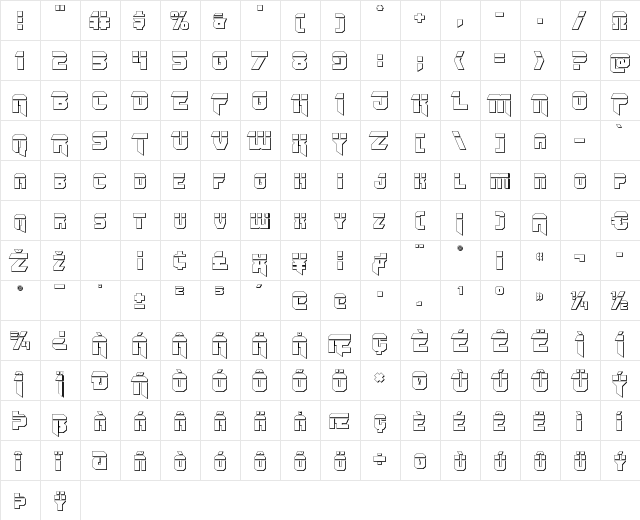
OmegaForce Bullet Regular
Design Context for OmegaForce Bullet Typeface
OmegaForce Bullet has the bold swagger of sports branding: strong, assertive letterforms designed to dominate headlines and jerseys alike.
A natural choice for gym brands, fantasy sports, jersey lettering, and action-driven headlines.
Pro Tip: Use OmegaForce Bullet in all-caps headlines where its athletic energy can fully express itself. Pair with a solid, simple sans for supporting text.